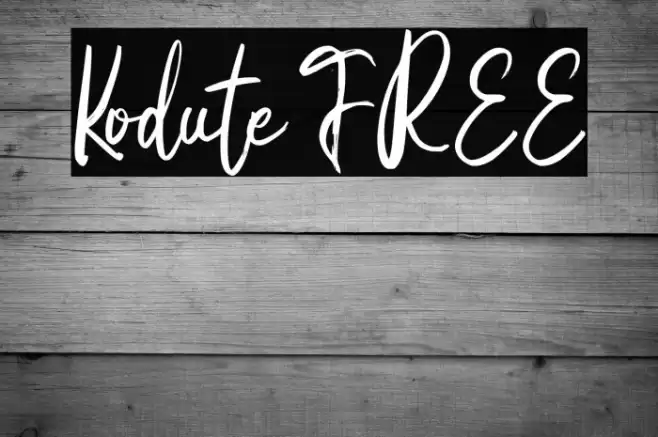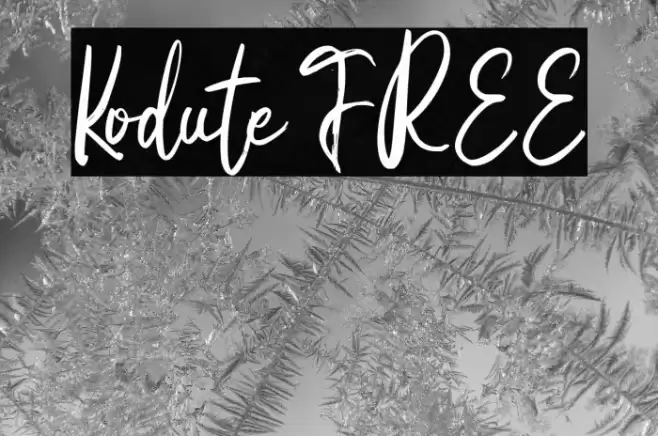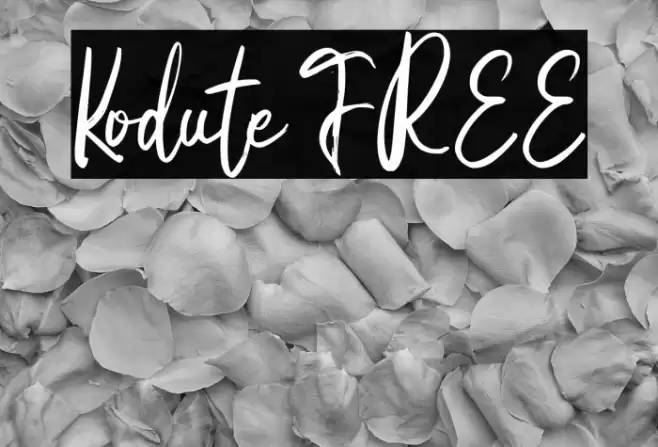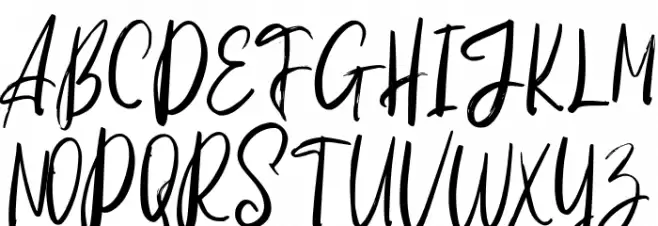
Kodute FREE Font
Kodute FREE Description
This font features a dynamic and expressive handwritten style, characterized by its fluid and cursive letterforms. The strokes are bold and slightly irregular, adding a sense of movement and personality to the text. The uppercase letters are tall and slightly narrow, while the lowercase letters maintain a consistent flow with elegant loops and curves. The numbers and special characters are designed to match the overall aesthetic, providing a cohesive look. This font's unique style makes it suitable for creative and artistic projects, where a personal touch is desired.
A bold, expressive handwritten font with fluid cursive strokes from Regular fonts.
- Proposed Projects: Ideal for invitations, greeting cards, branding, and artistic projects requiring a personal touch.
- Use Case: Logos, Headlines, Artistic projects